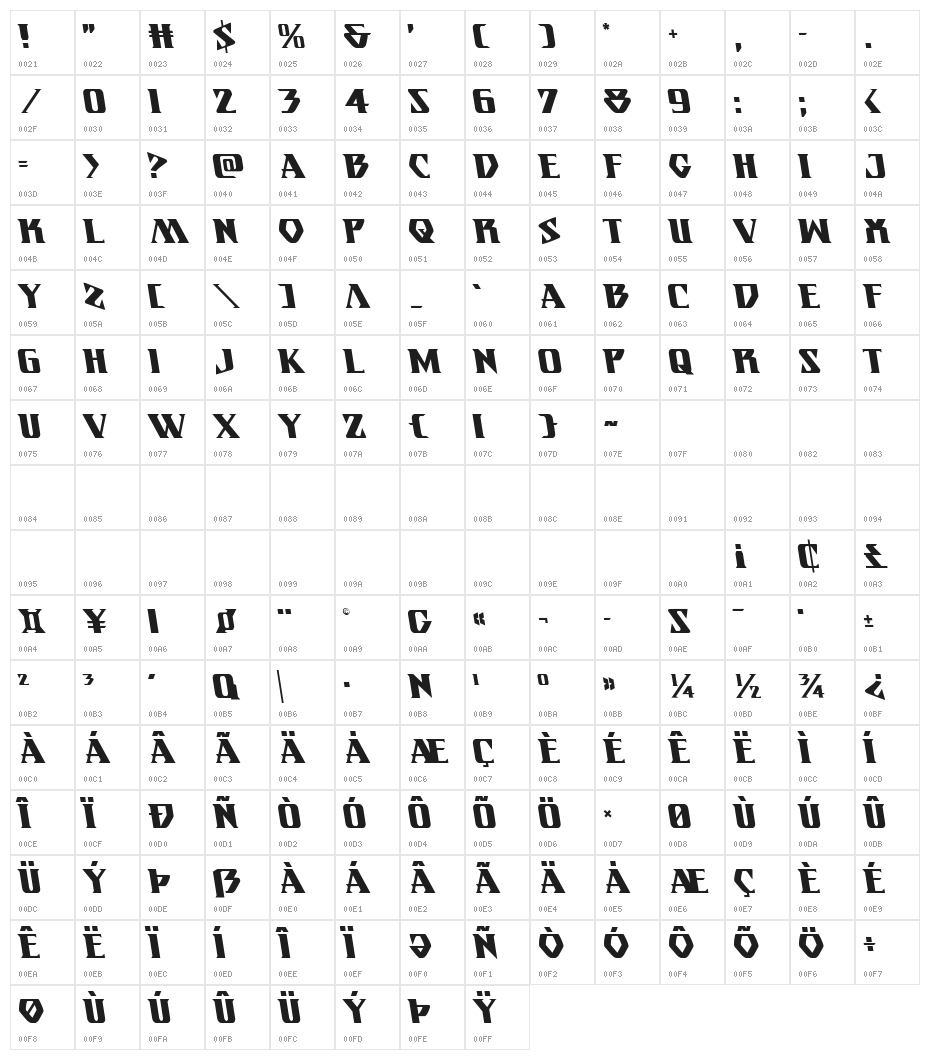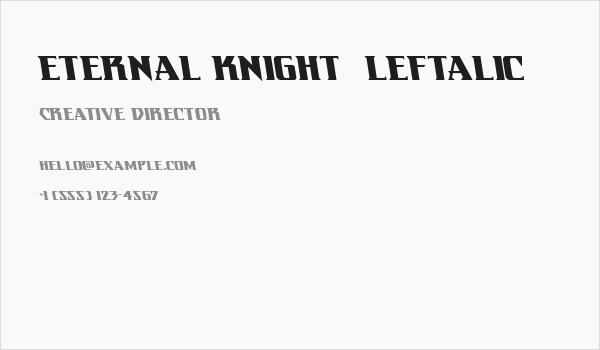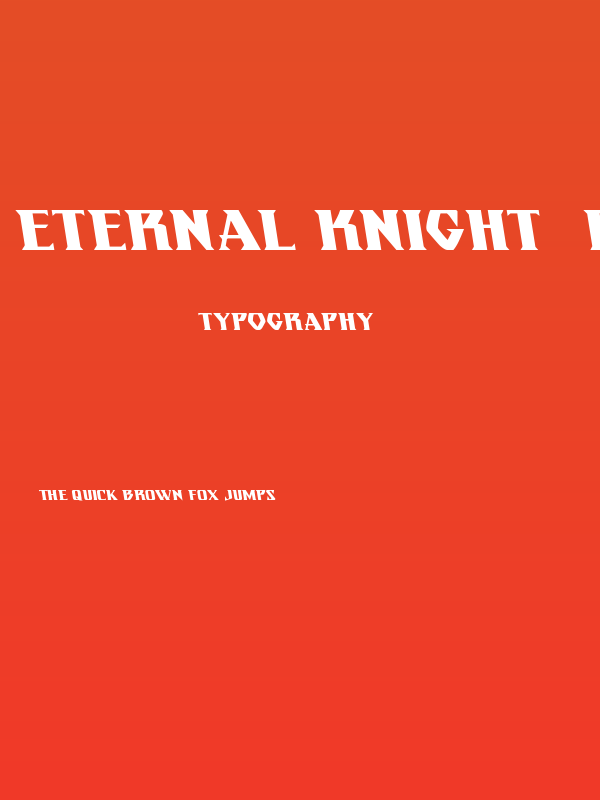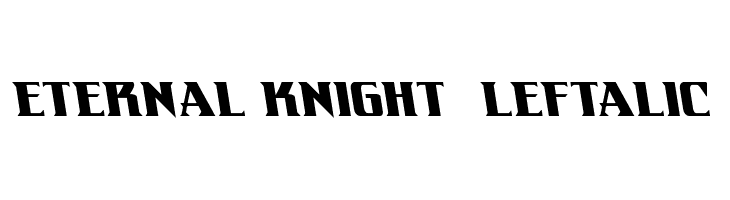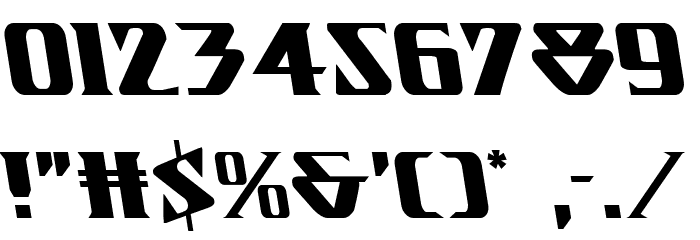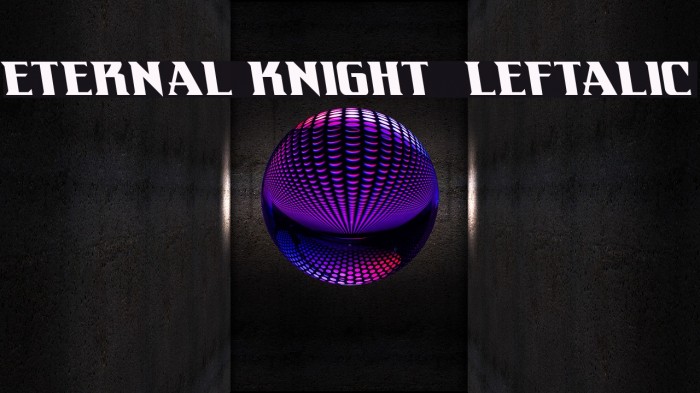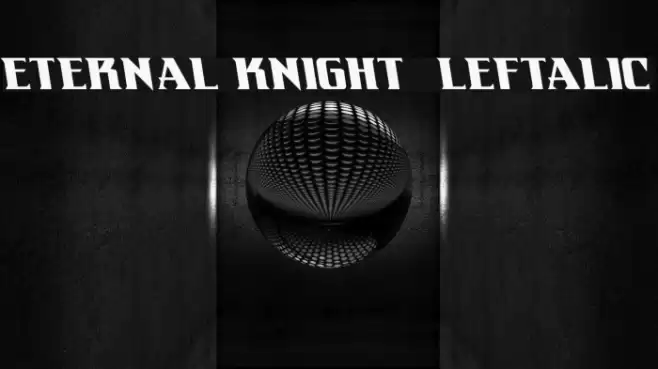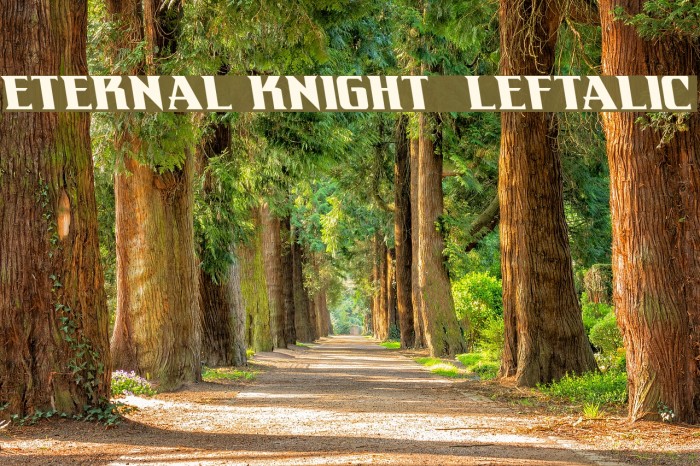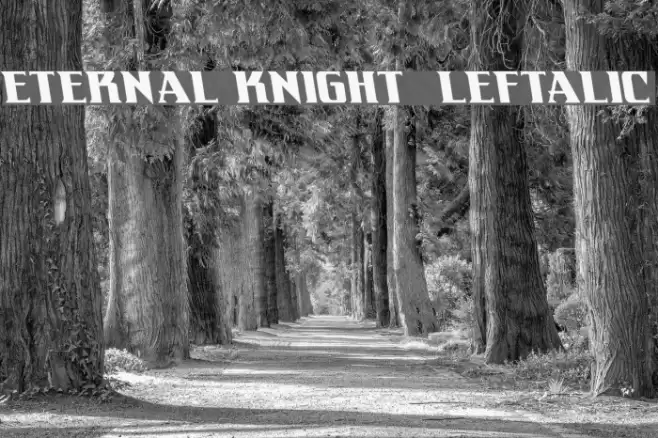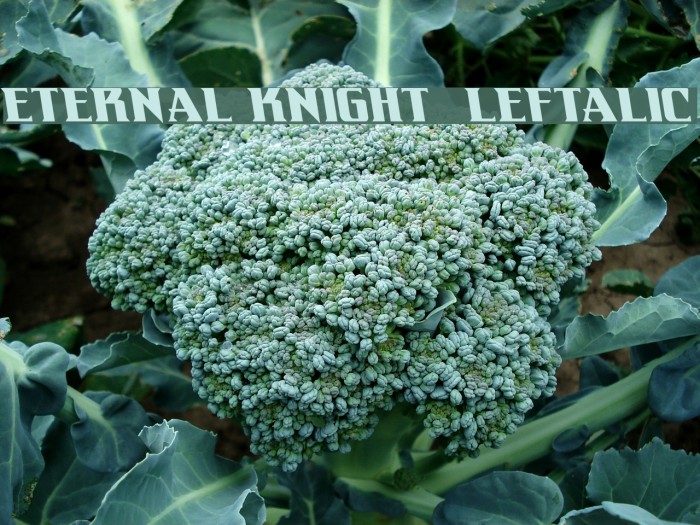
Eternal Knight Leftalic Font
| おすすめプロジェクト | Ideal for fantasy-themed projects, video game titles, movie posters, or any design requiring a dramatic and bold typeface. |